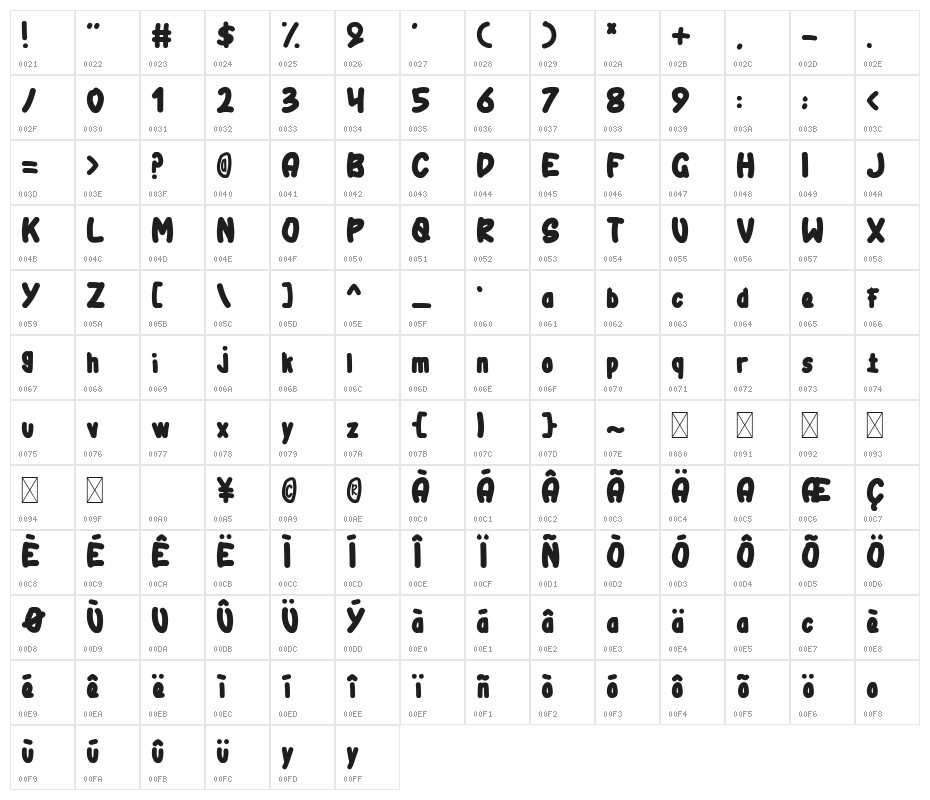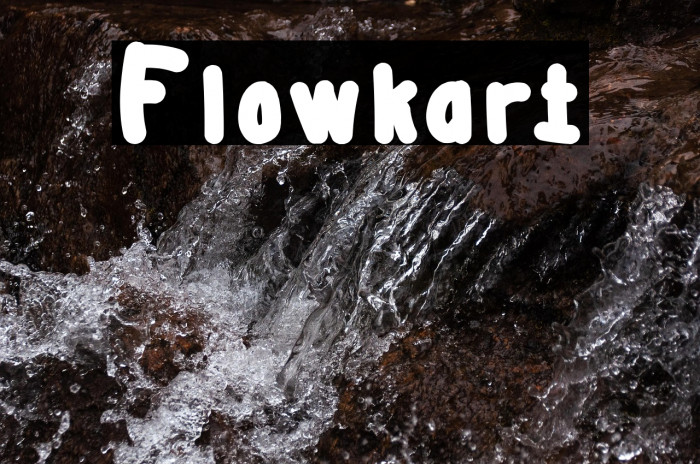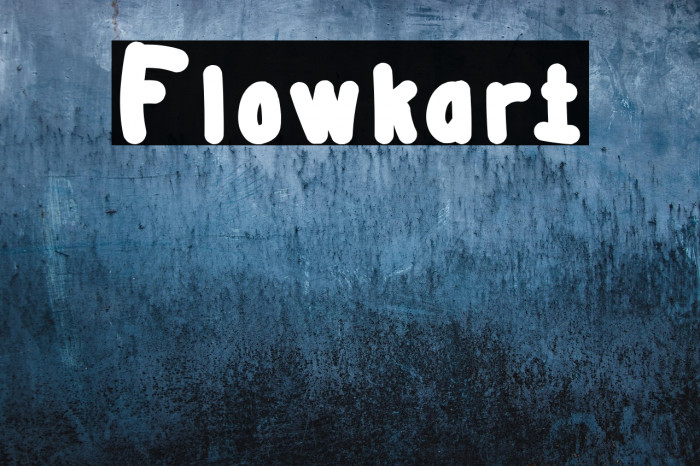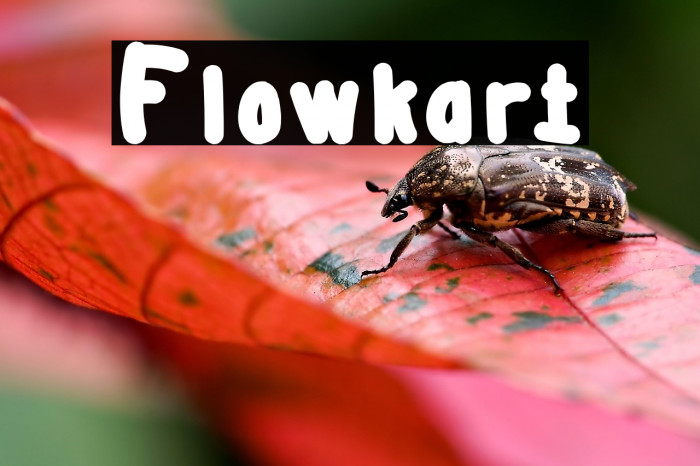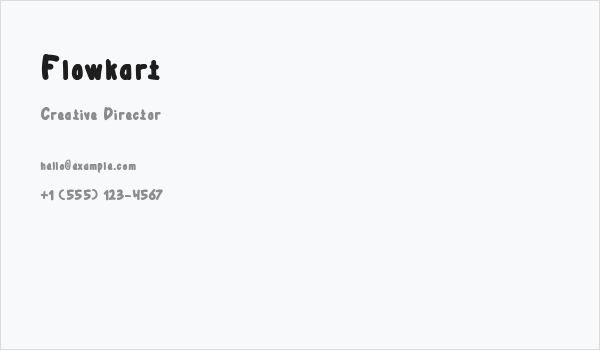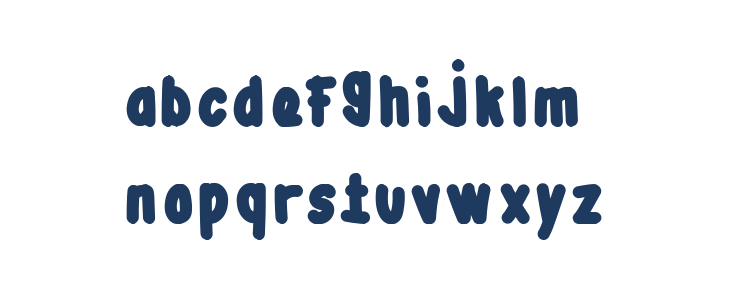
Flowkart Font
Flowkart Description
This font features a bold and playful style with rounded, thick strokes that give it a friendly and approachable appearance. The characters are slightly irregular, adding a hand-drawn feel that enhances its casual and informal vibe. The uppercase and lowercase letters maintain a consistent weight, ensuring readability while still conveying a sense of fun. The numbers and special characters are designed to match the overall style, making them suitable for a variety of creative applications. This font is perfect for projects that require a touch of whimsy and personality.
| Overall Style | Playful |
| Use Case | Logos, Headlines, Posters |
| Proposed Projects | Ideal for children's books, playful branding, posters, and social media graphics. |